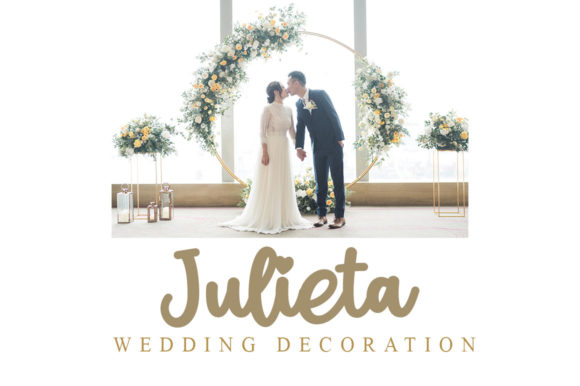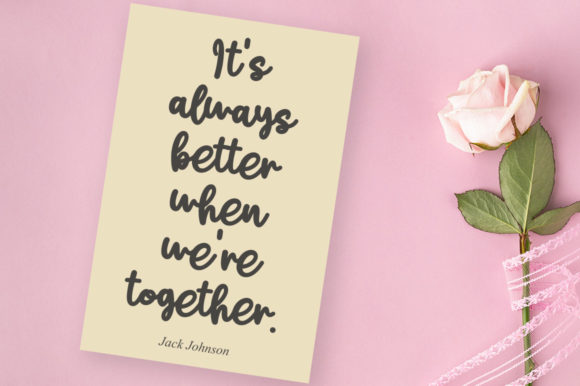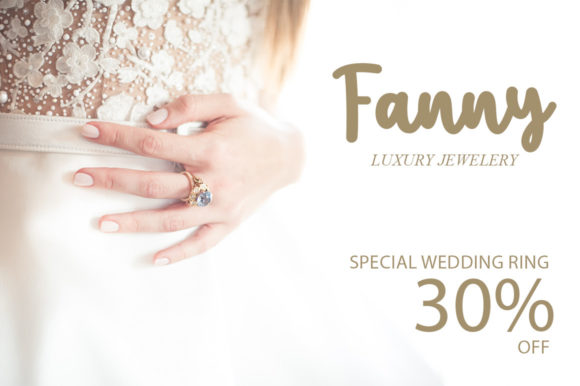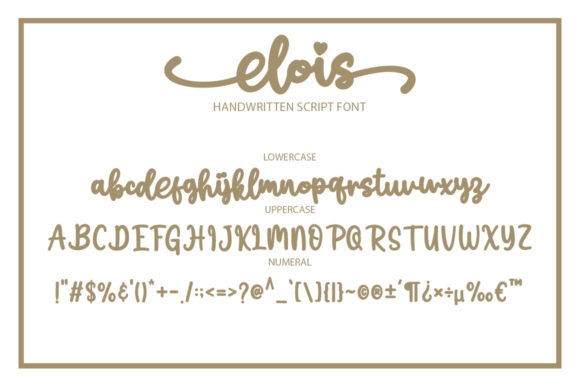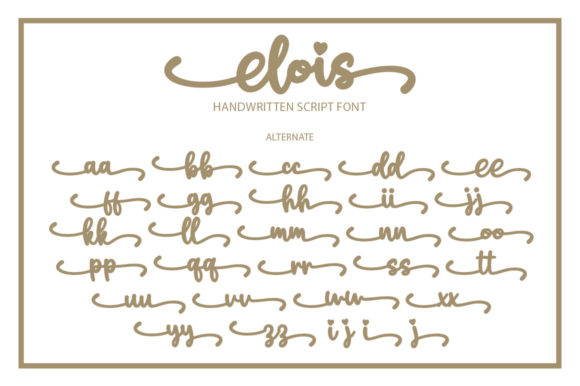
About Elois Font
Elois is a vintage and timeless handwritten font. It is the best choice for creating eye catching logos, branding and quotes. Elois is PUA encoded which means you can access all of the glyphs and swashes with ease!